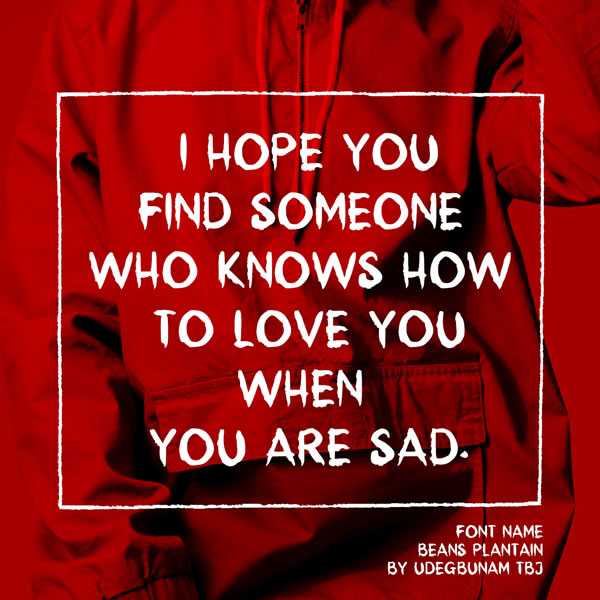
Beans Plantain Font
About Beans Plantain Font
Beans Plantain is a unique typeface.
It can be used for various purposes such as mugs, headings, logos, invitations, newspapers, and much more!